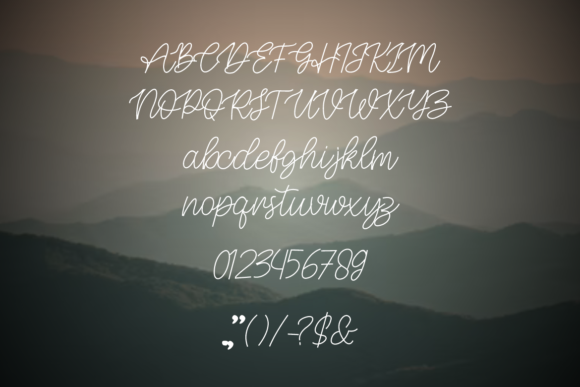
Helber Font
About Helber Font
Helber is a script font that is both delicate and styled with a vintage touch. It has been specifically crafted for those who require a beautiful and refreshing aesthetic in their designs.
The delicacy of Helber gives it a soft and elegant feel. This makes it perfect for projects that require a touch of sophistication and elegance. Whether you’re designing a wedding invitation, a logo, or a social media post, Helber can add that extra touch of delicacy that makes your designs stand out.
One of the standout features of Helber is its vintage style. This gives it a timeless and classic feel, making it perfect for projects that require a touch of nostalgia and charm. Whether you’re designing a vintage poster, a retro logo, or a historical piece, Helber can add that extra touch of vintage charm that makes your designs stand out.
Helber is not just a font; it’s a tool that can help you express your creativity. Its beautiful and refreshing look can bring a sense of beauty and freshness to your designs, making them more appealing and engaging. Whether you’re designing for a client or for your own personal projects, Helber can help you convey the right emotion and message.
In conclusion, Helber is a delicate, vintage-styled script font that is perfect for a wide range of projects. Its beauty and refreshing aesthetic make it a valuable asset for any designer. So, whether you’re a professional designer or a hobbyist, Helber is a font worth considering for your next project. Why not give Helber a try and see how it can enhance your designs? You might be surprised at the difference it can make!